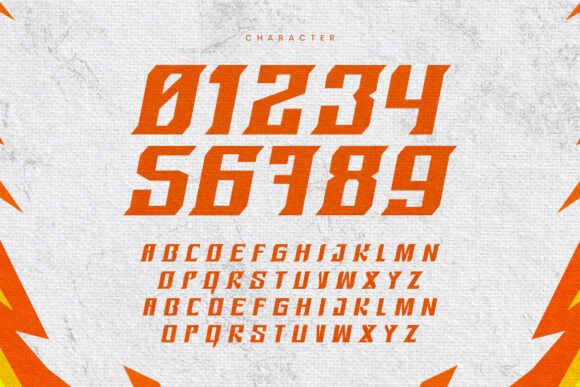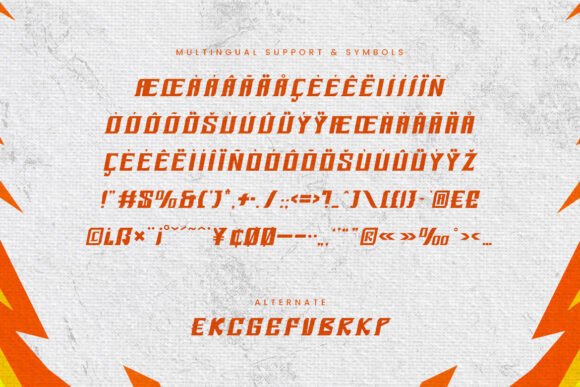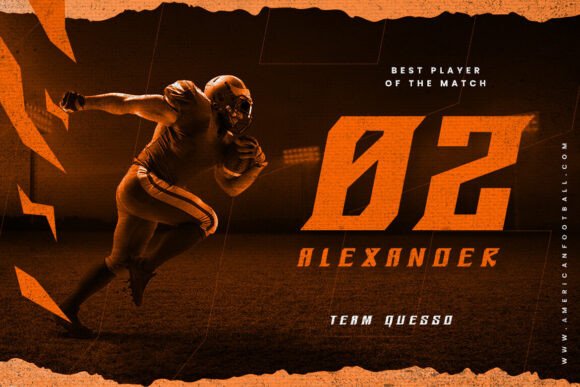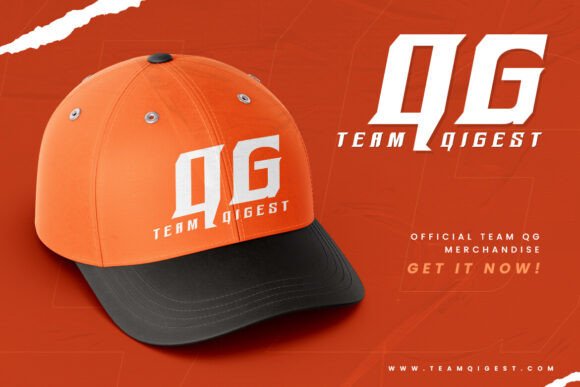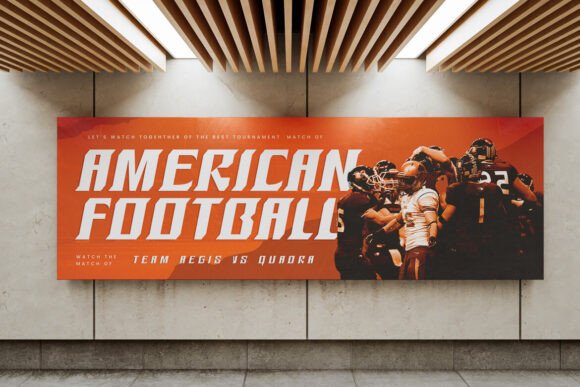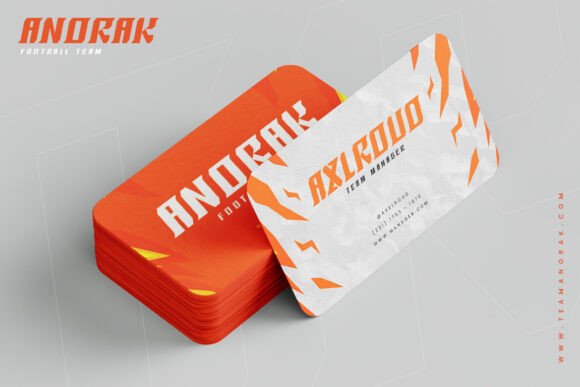
Introducing Backheel Font: The Ultimate Choice for Bold Sports Design
In the world of sports design, typography plays a crucial role in conveying energy, speed, and competitiveness. A well-crafted font can elevate a team’s brand identity, making it instantly recognizable and memorable. Meet Backheel, the newest jersey typeface that’s taking the sports design world by storm. Designed specifically for bold, high-impact sports design, Backheel is the perfect choice for team uniforms, jersey numbers, logos, sports event posters, and fan merchandise.
The Design Behind Backheel
Backheel boasts a strong structure, clean lines, and a sporty aesthetic that sets it apart from other fonts. Its versatile display style ensures readability and visual strength, making it an ideal choice for athletic branding. The font’s design is inspired by the dynamic and fast-paced world of sports, where every second counts. Whether you’re designing for football, basketball, or esports, Backheel brings speed, energy, and competitive edge to your typography.
Key Features of Backheel Font
- Strong Structure: Backheel’s robust design ensures that your sports brand stands out, even at a distance.
- Clean Lines: The font’s clean lines and minimalistic approach make it easy to read and recognize.
- Sporty Aesthetic: Backheel’s sporty look and feel make it perfect for team uniforms, jersey numbers, and sports event posters.
- Versatile Display Style: The font’s versatile display style ensures readability and visual strength, making it suitable for various sports design applications.
Why Choose Backheel for Your Sports Design?
Backheel is more than just a font – it’s a design solution that can elevate your sports brand to the next level. Here are some reasons why designers and crafters should choose Backheel for their sports design projects:
- Instant Recognition: Backheel’s unique design ensures that your sports brand stands out and is instantly recognizable.
- Flexibility: The font’s versatility makes it suitable for various sports design applications, from team uniforms to sports event posters.
- Readability: Backheel’s clean lines and strong structure ensure that your message is conveyed clearly, even at a distance.
- Competitive Edge: Backheel’s sporty aesthetic and bold design give your sports brand a competitive edge in the market.
Applications of Backheel Font
Backheel is an incredibly versatile font that can be used in various sports design applications, including:
- Team Uniforms: Backheel is perfect for designing team uniforms, jersey numbers, and logos.
- Sports Event Posters: The font’s bold design and sporty aesthetic make it ideal for sports event posters and flyers.
- Fan Merchandise: Backheel can be used to create fan merchandise, such as t-shirts, hats, and other apparel.
- Esports Design: The font’s modern and sleek design makes it suitable for esports design, including team logos and jerseys.
In conclusion, Backheel is a game-changing font that’s specifically designed for bold, high-impact sports design. Its strong structure, clean lines, and sporty aesthetic make it the perfect choice for team uniforms, jersey numbers, logos, sports event posters, and fan merchandise. With its versatility and readability, Backheel is an essential tool for designers and crafters who want to elevate their sports brand to the next level. Whether you’re designing for football, basketball, or esports, Backheel brings speed, energy, and competitive edge to your typography.